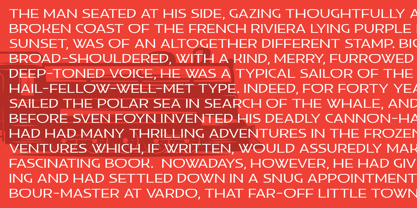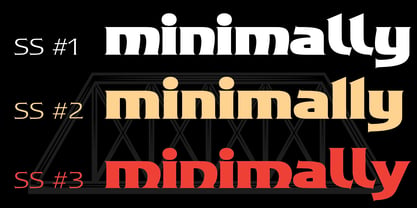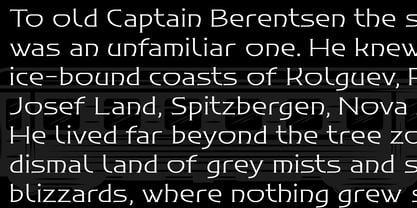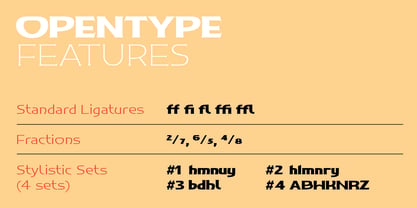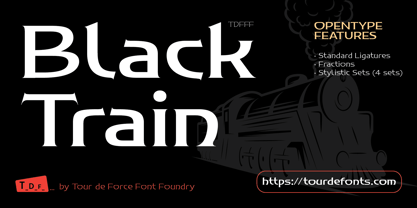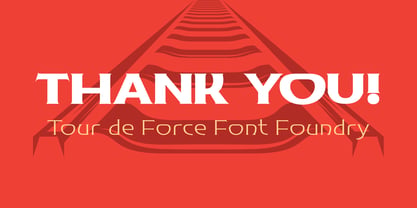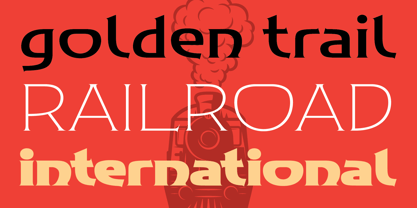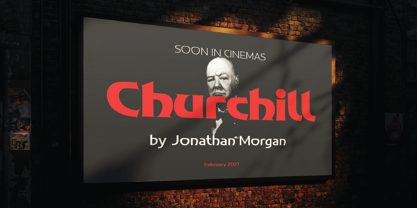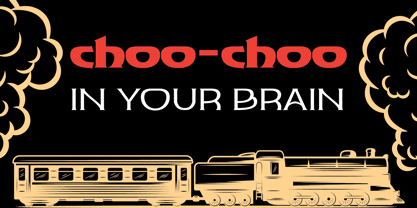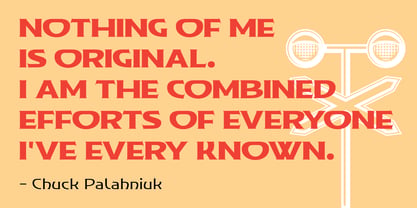
Black Train
by Tour De Force
The Black Train Font Family was designed by Dusan Jelesijevic and published by Tour De Force. Black Train contains 7 styles and family package options. More about this family
Black Train is a high-contrast display serif that blends vintage railroad poster aesthetics with contemporary type design. Its sharp wedge serifs, sculpted forms, and strong vertical rhythm create a bold, unmistakable presence while maintaining elegance and readability.
Available in a complete weight range from Light to Black, it offers exceptional versatility for both refined editorial work and high-impact branding. Its carefully balanced proportions, strong vertical stems, and sharply sculpted details create a distinctive rhythm that feels both vintage and modern.
Supporting the Extended Latin character set, Black Train is ready for multilingual projects across a wide range of Latin languages. The family includes OpenType features such as Standard Ligatures, Fractions, and four Stylistic Sets, giving designers additional creative flexibility. Ideal for posters, packaging, logos, book covers, hospitality branding, and luxury-inspired visual identities.